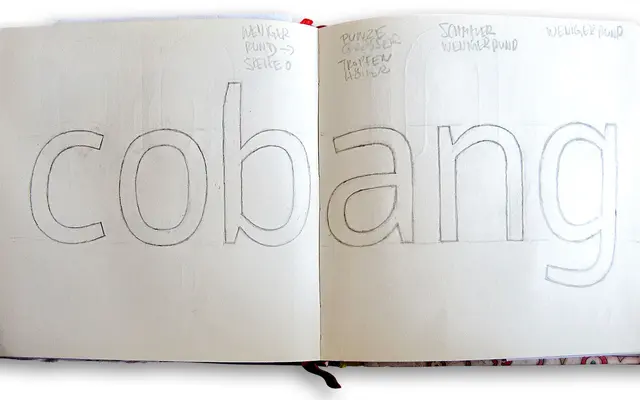
FF Scuba
Flood Fonts · Felix Braden
A contemporary sans designed by Felix Braden as a print-ready companion to Verdana, mixing constructed letterforms with dynamic strokes for legibility at both text and display sizes.
Developed after Felix Braden failed to find a suitable offline counterpart for Verdana, FF Scuba sits slightly tighter and more condensed than its screen-optimised reference, making it better suited to print. At small sizes it holds up well alongside Verdana, while at larger sizes the tension between an almost rectangular 'o', inward-tapering stems and more fluid, written elements gives the typeface a distinctive character. The combination of technical construction and calligraphic energy keeps the design from feeling purely mechanical.
FF Scuba combines constructed geometric elements with dynamic, written strokes, placing it in the humanist sans category; its Verdana-adjacent origins and print-optimised legibility reinforce this classification.